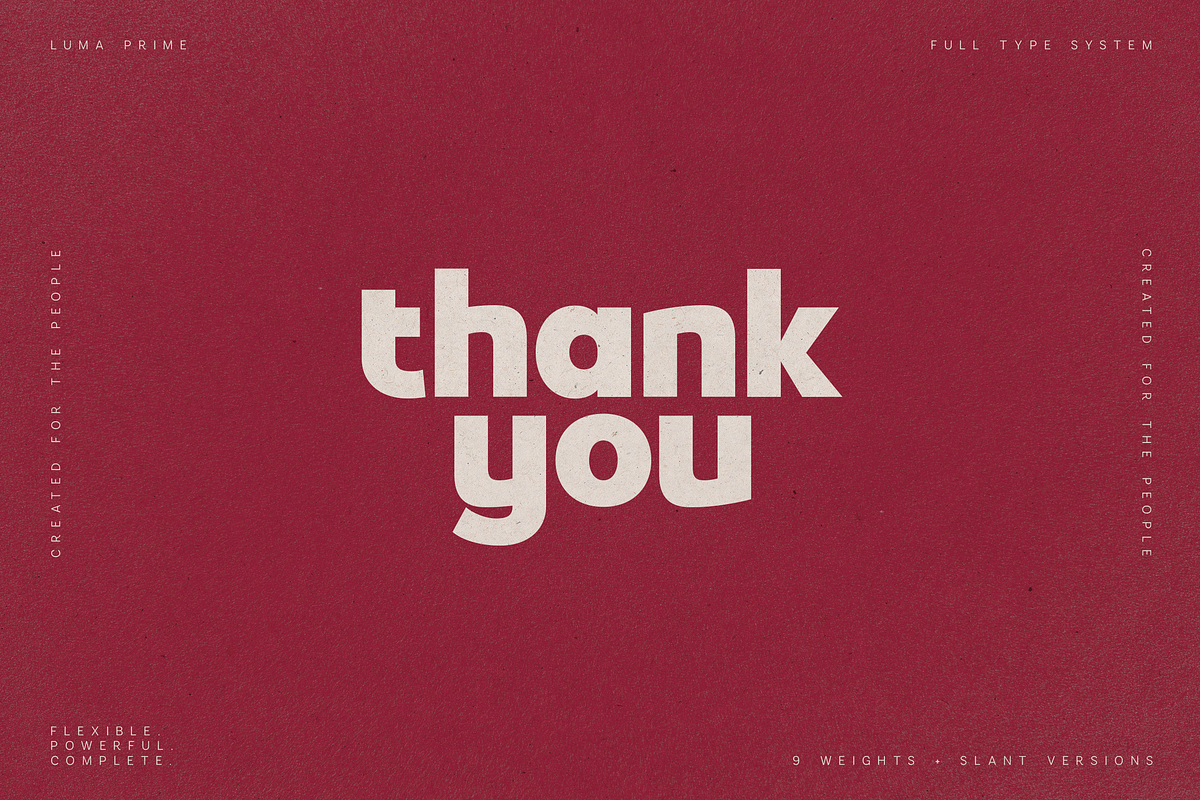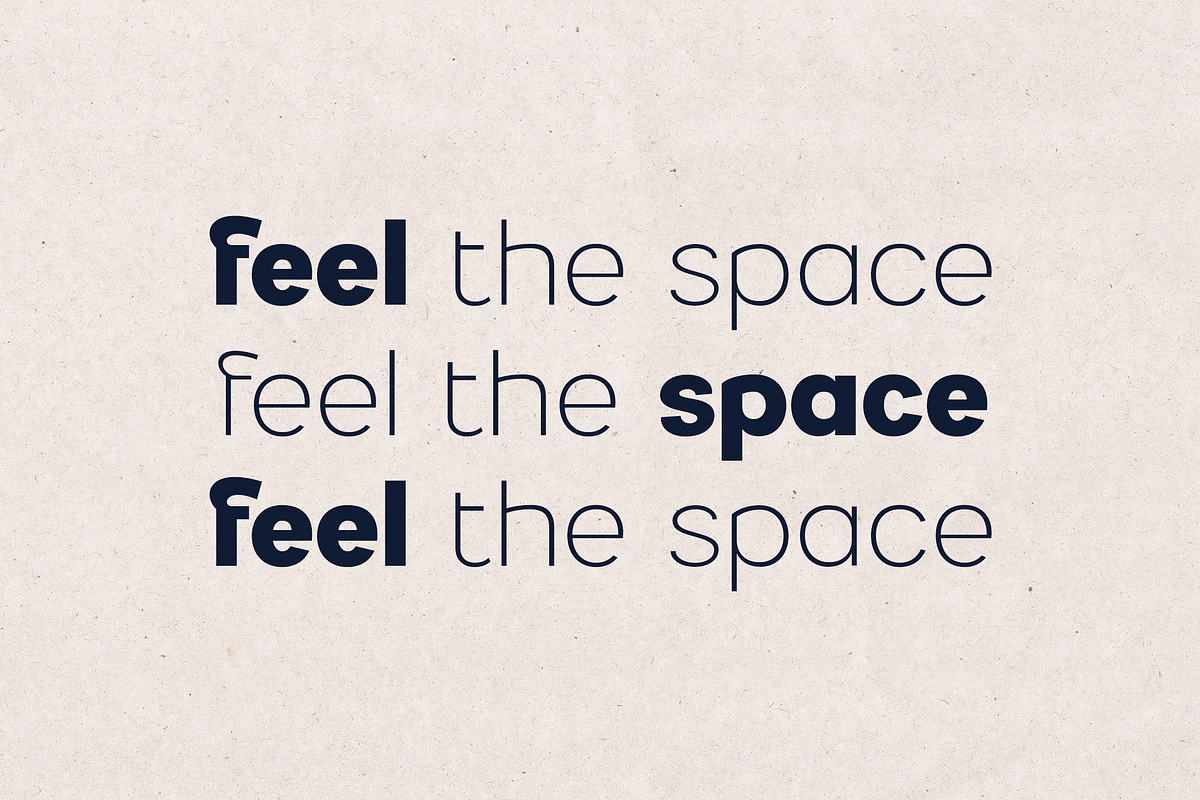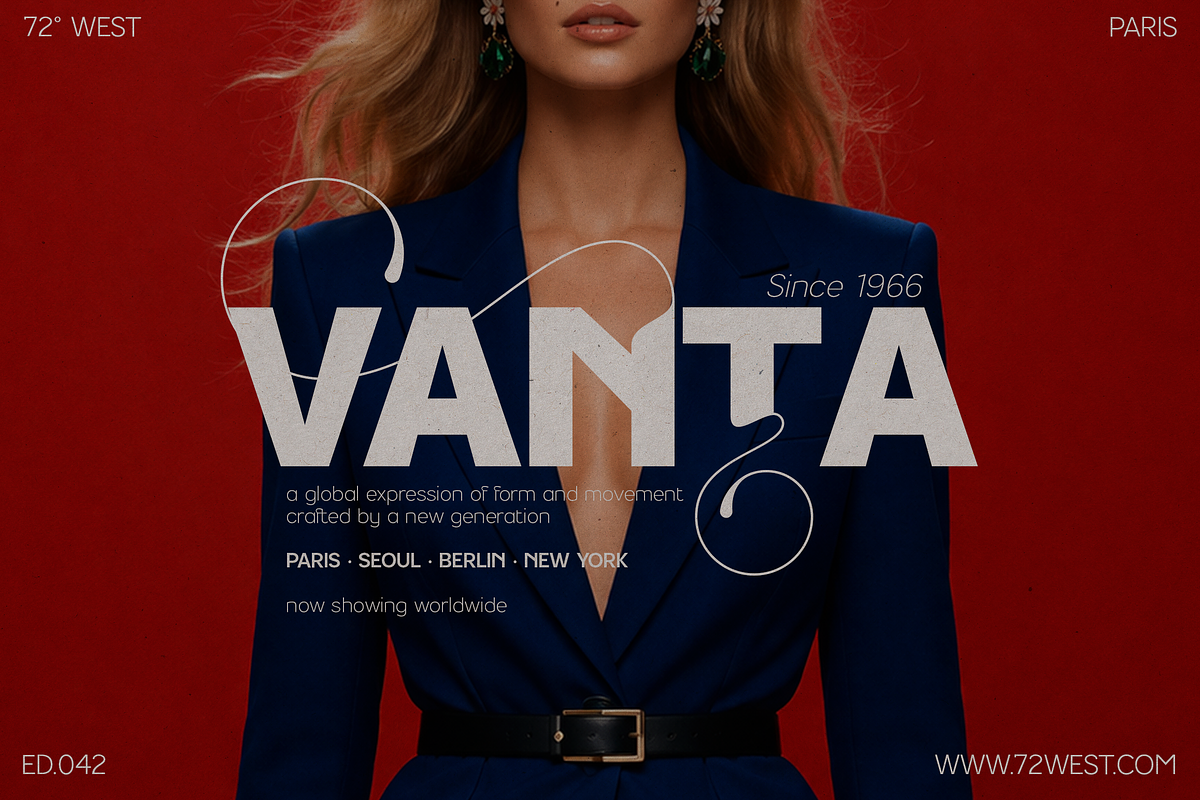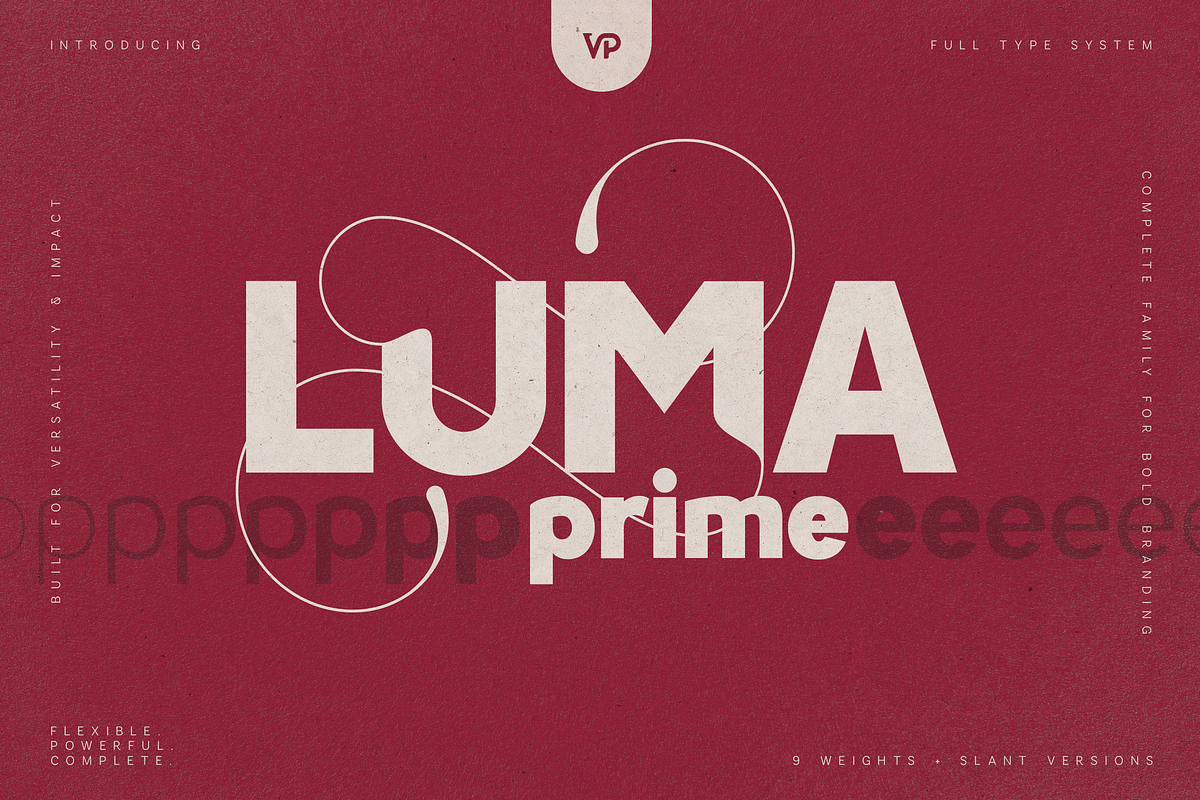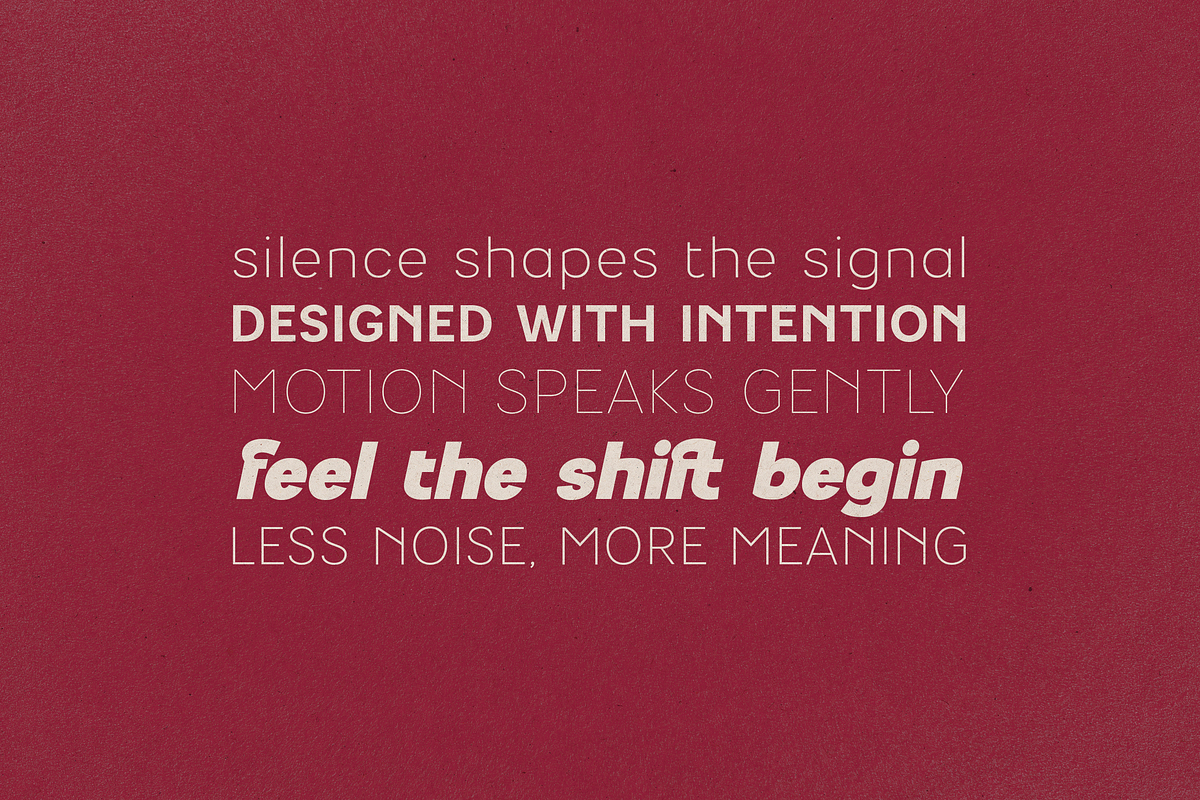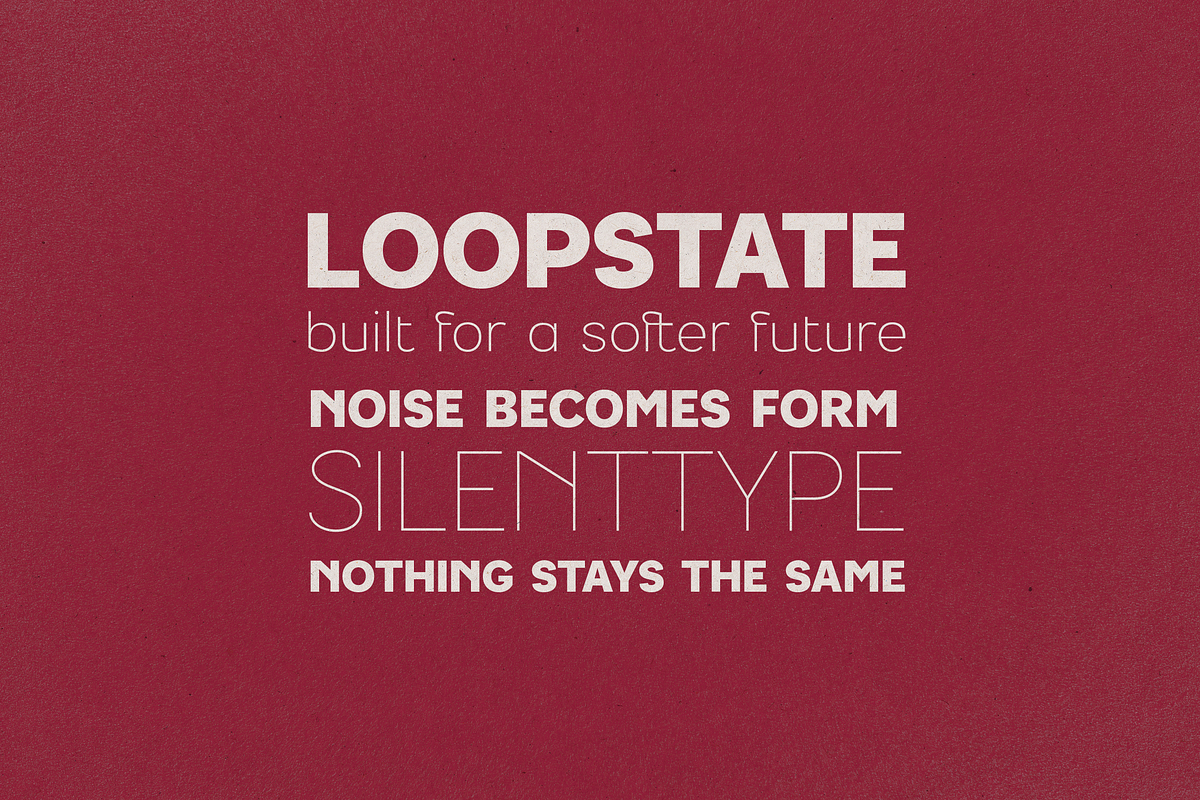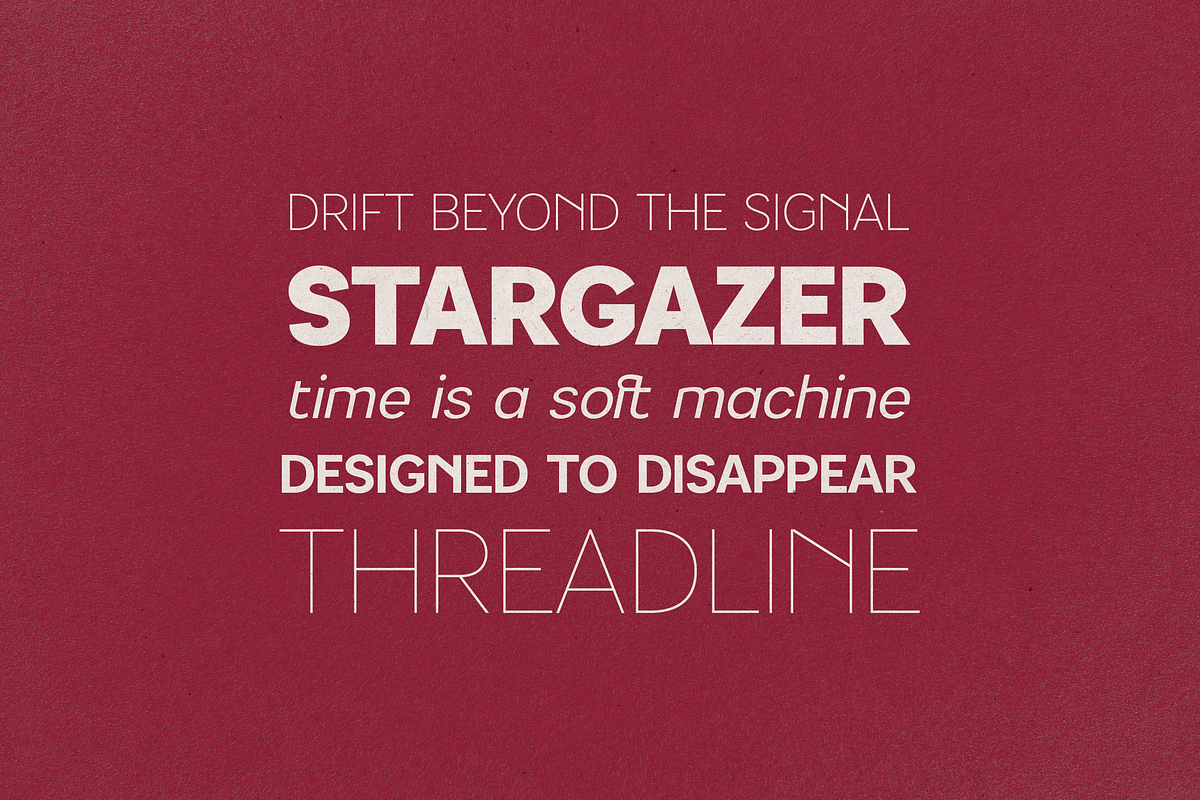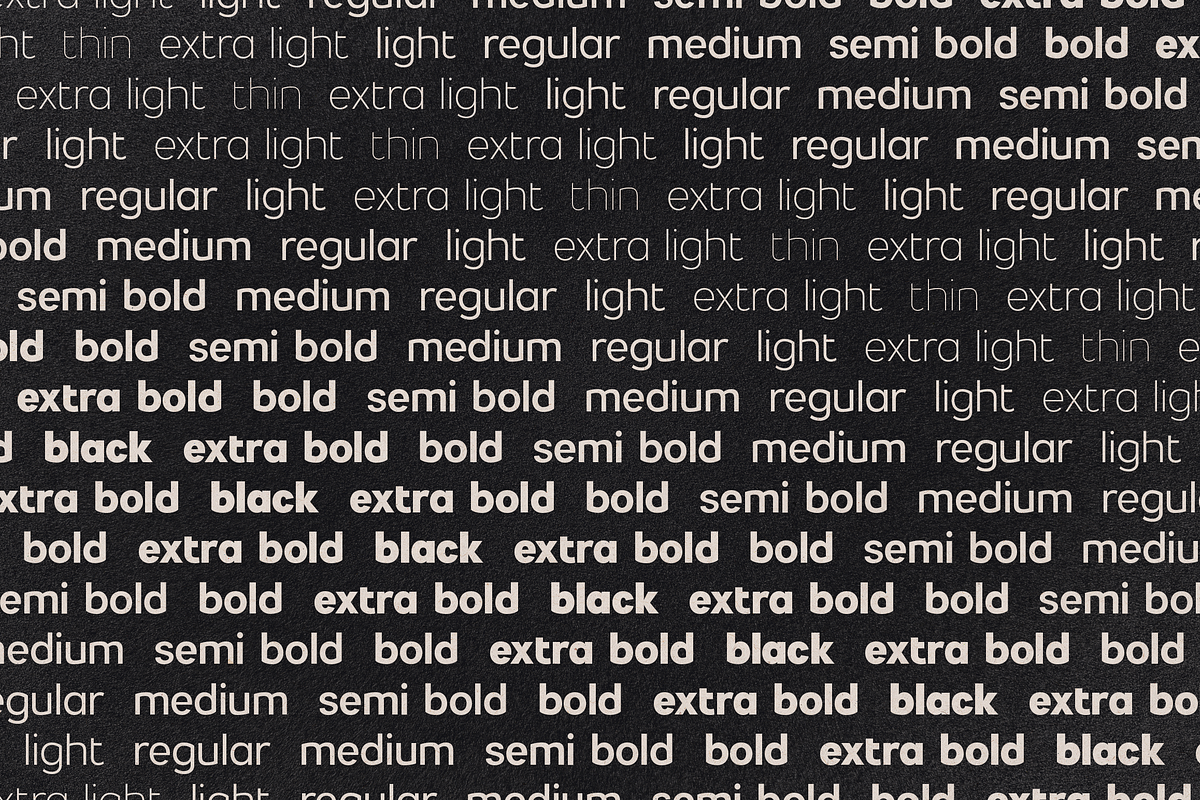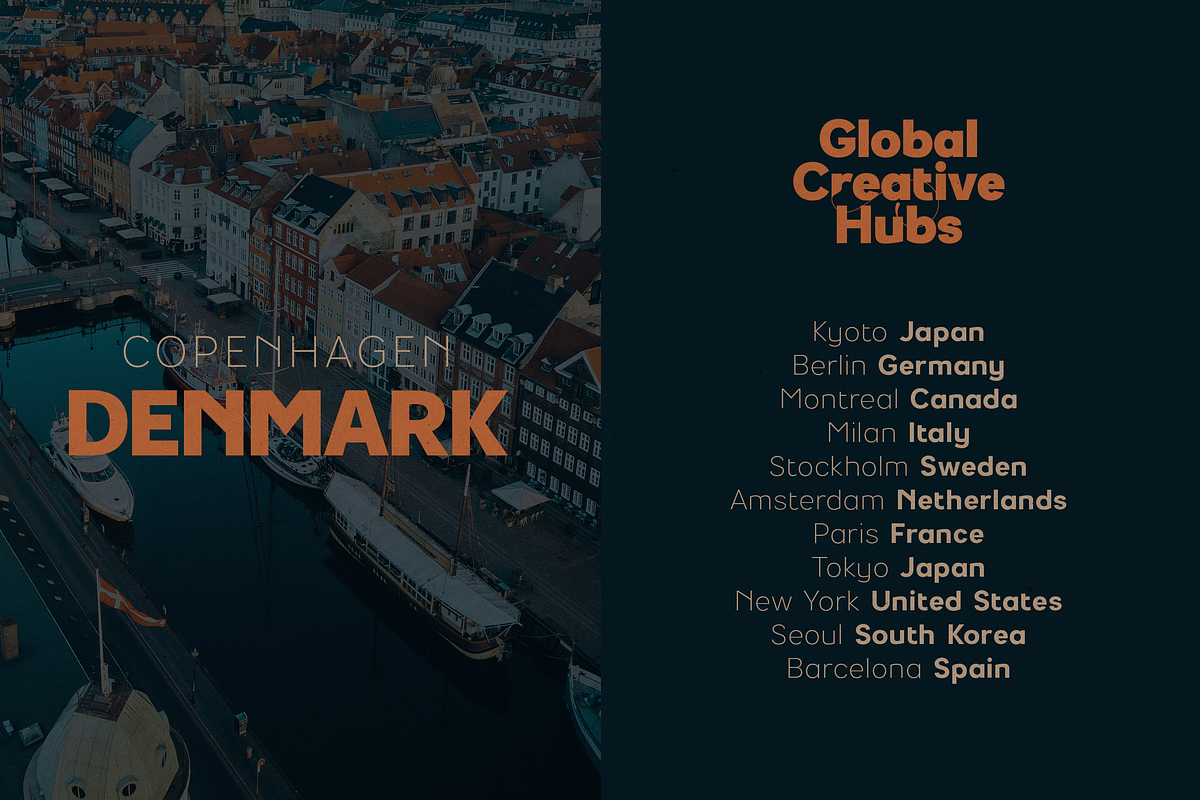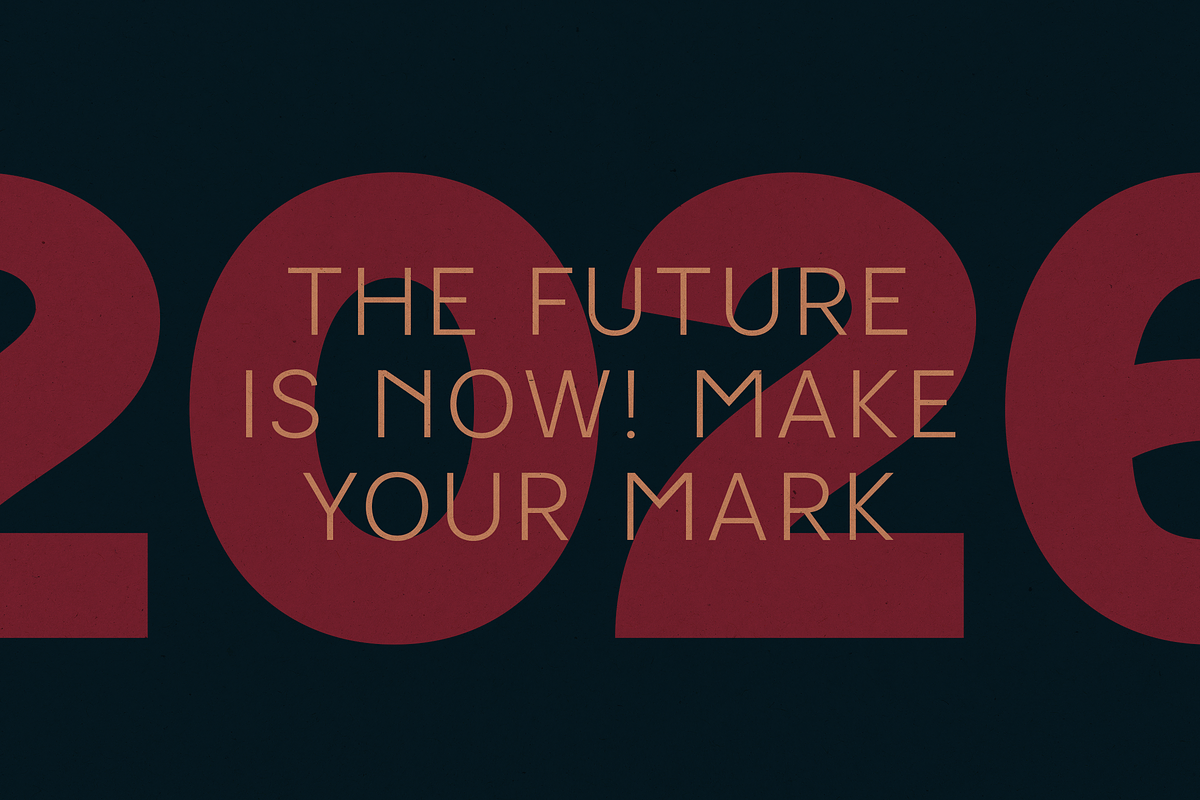
LUMA Prime – Modern Typeface
LUMA Prime – Modern Sans Serif Typeface
LUMA Prime is a powerful modern sans serif typeface designed for bold visual identity, editorial impact, and high-end branding systems. Built with precision and flexibility, it delivers a clean yet expressive voice across both digital and print environments.
With its strong geometric foundation and refined curves, LUMA Prime balances structure and personality - making it perfect for everything from fashion campaigns and magazine layouts to packaging, advertising, and contemporary brand identities.
This typeface was crafted to perform at scale. Whether used in oversized headlines or subtle typographic systems, LUMA Prime maintains clarity, rhythm, and visual confidence.
- LUMA Prime is not just a font- it’s a complete type system built for designers who want consistency, versatility, and impact.
- Clean, modern sans serif with subtle character
- Designed for branding, editorial, and visual storytelling
- Strong presence in headlines, smooth readability in layouts
- Works beautifully across fashion, lifestyle, corporate, and creative industries
- Carefully balanced proportions for professional results
- 9 weights from Thin to Black
- Slanted versions for dynamic compositions
- Clean uppercase & lowercase
- Extended Latin character set
- 87+ language support
- Numbers, punctuation & symbols included
- Optimized spacing and kerning
- Design Concept
Inspired by contrast, movement, and modern visual culture, LUMA Prime explores the relationship between structure and expression. Its minimal base is enhanced with subtle details that bring personality without sacrificing usability.